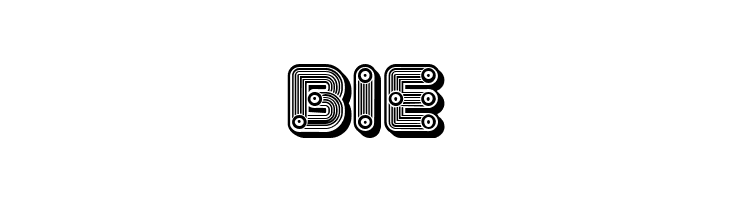
A bold, decorative font with a 3D marquee light effect.
A bold, futuristic font with a circuit-like pattern and strong contrast.
( Fonts by Weape Studio )
A bold, playful font with jagged, textured edges for a dynamic appearance.
( aiyari - Ricky Rinaldi - creativemarket.com/Aiyari )
A modern, high-contrast font with sharp, angular serifs and a Gothic-inspired style.
A bold, geometric font with a futuristic, circuit-like design.
( Fonts by Vít Čondák )
A playful, casual handwritten font with smooth, rounded lines.